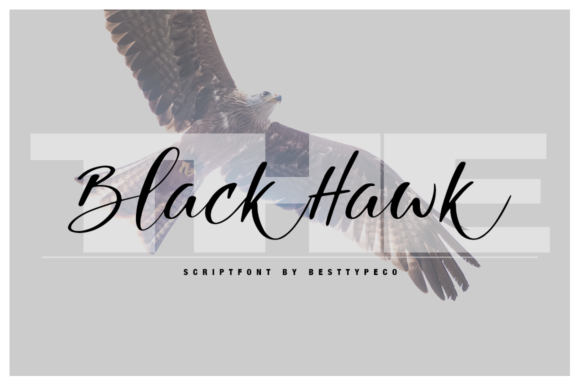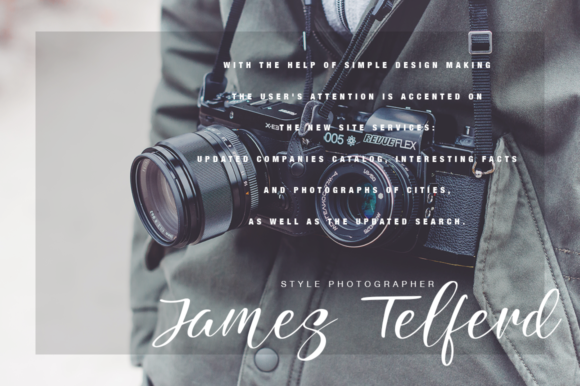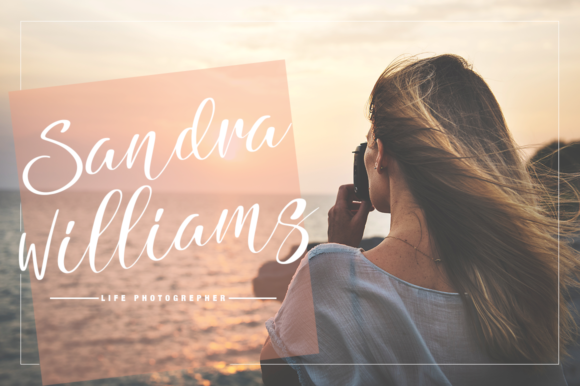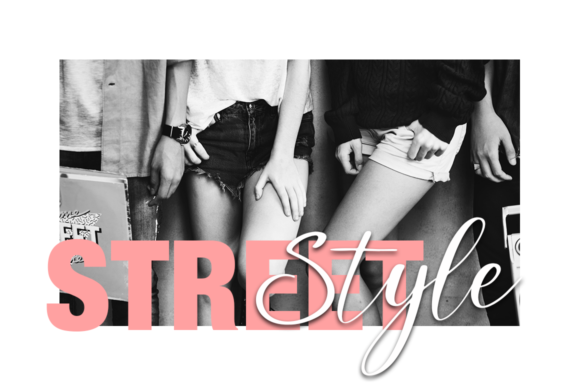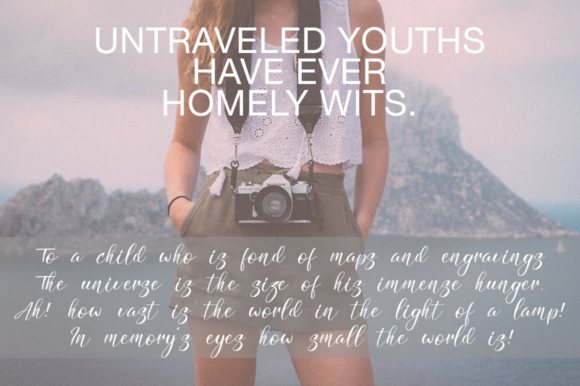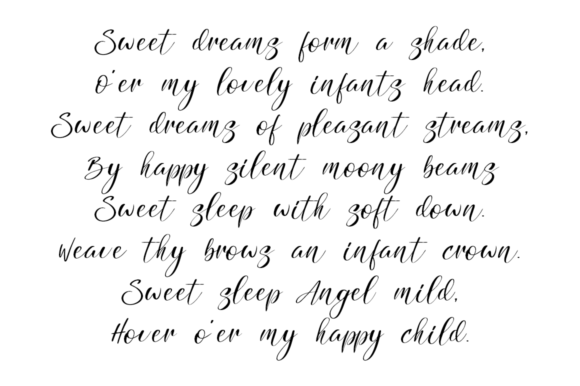
Black Hawk Font
About Black Hawk Font
The BlackHawk is a new fresh handmade calligraphy font.
It’s very suitable for greeting cards, branding materials, business cards, quotes, posters, and more!